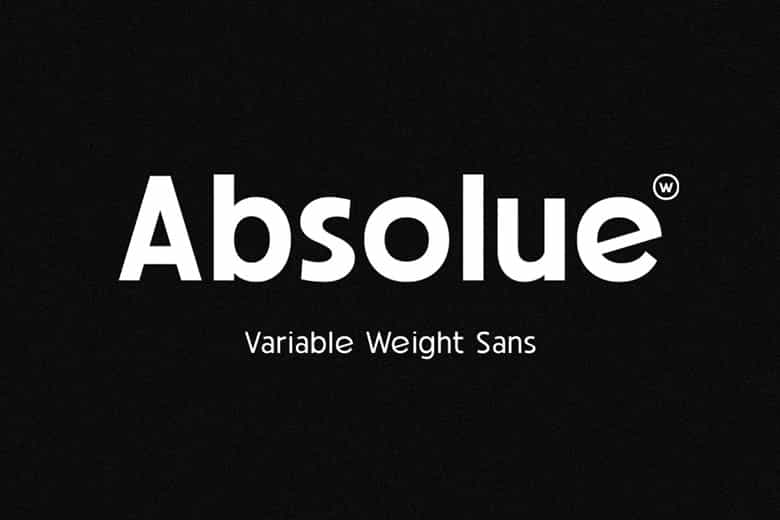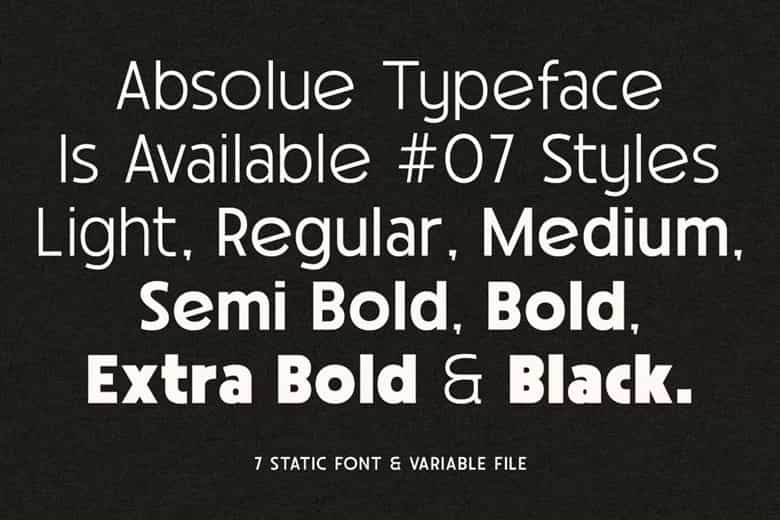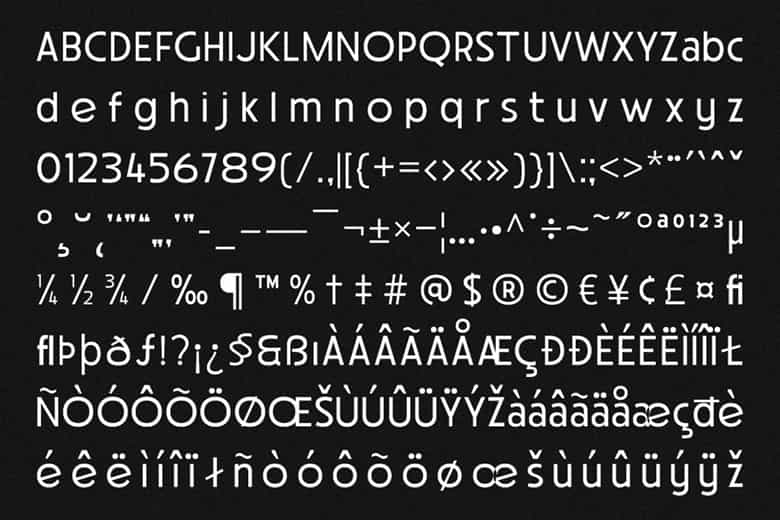
Absolue is a variable weight font format in a sans serif font. Adaptable enough for a variety of design applications including branding, logo design, headlines, website content, book layouts, etc.